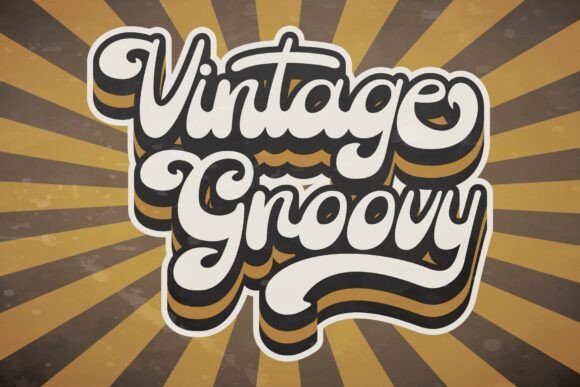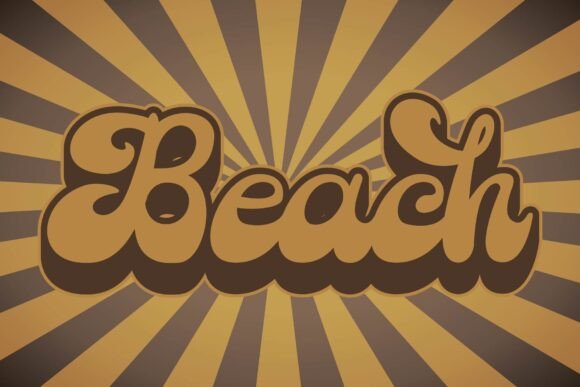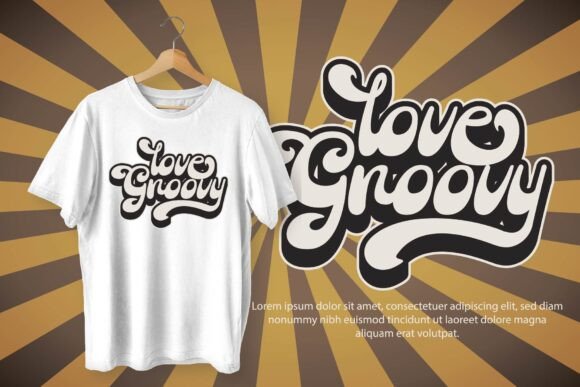
Introduction to Retro Fancy Font
Retro Fancy is a cool, vintage-style handwritten font.
Use it to add that special retro touch to any design idea It can be used for logos, branding, invitations, stationery, wedding designs, social media posts, and much more.
Retro Fancy Font offers exceptional quality and versatility, making it a valuable addition to your design toolkit. Whether you’re creating for personal projects or commercial use, Retro Fancy Font delivers professional results.